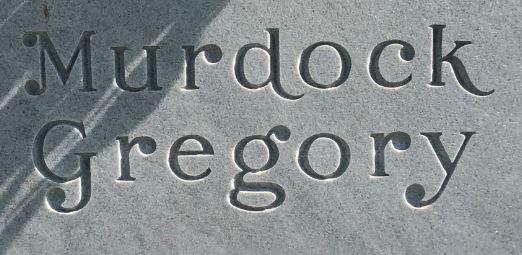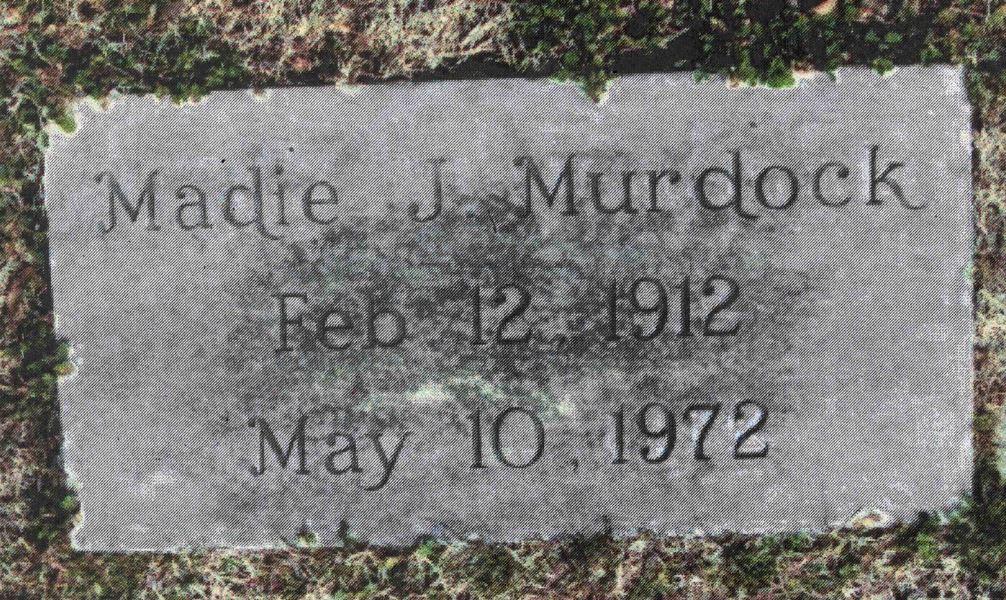
Do you know what font this is?
Hello, this is a very interesting lettering style. It’s a “Ball-serif” font, but I believe this is custom hand-drawn lettering and not a font—as those ball-serifs are much larger than anything I’ve seen before and this memorial was made before the computer era.